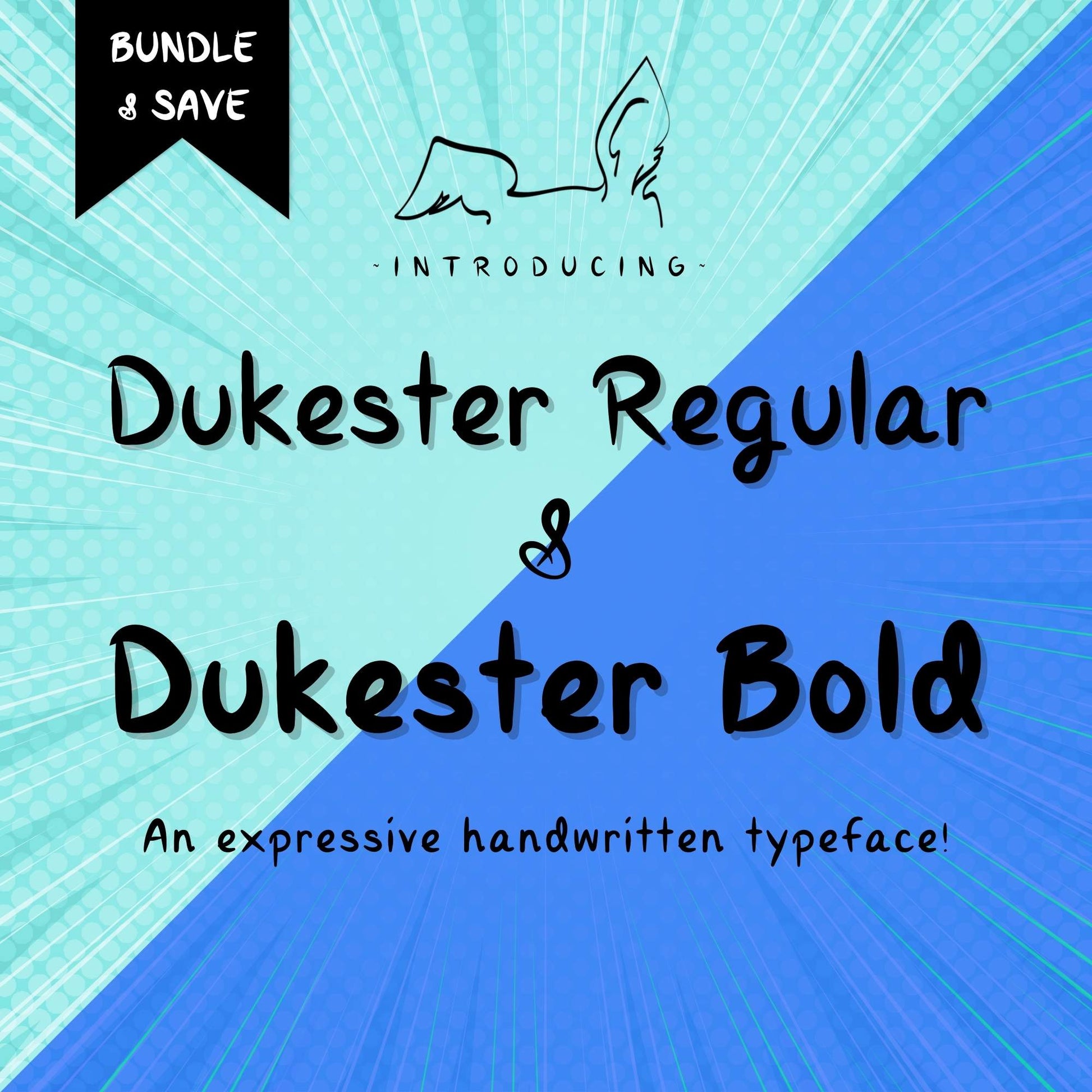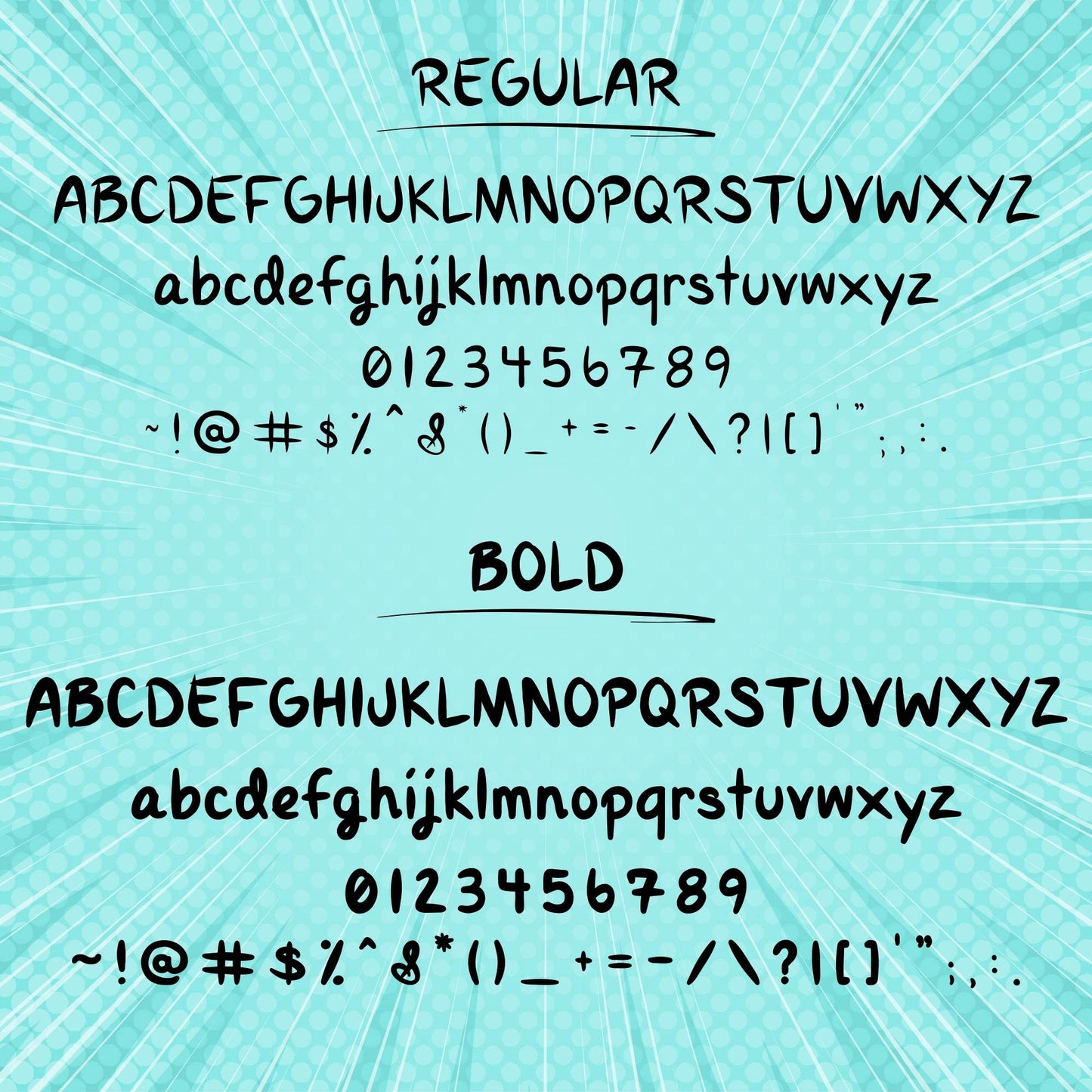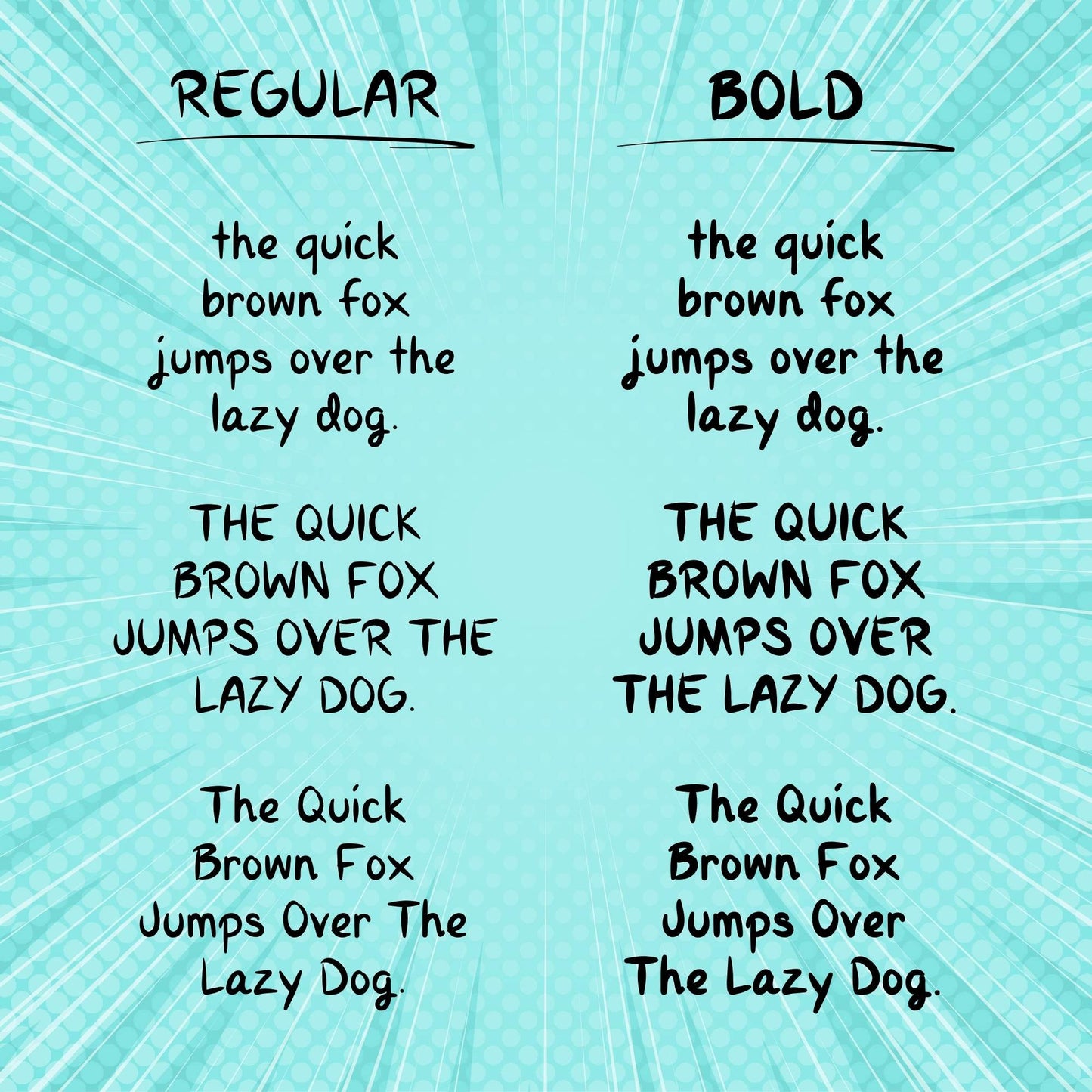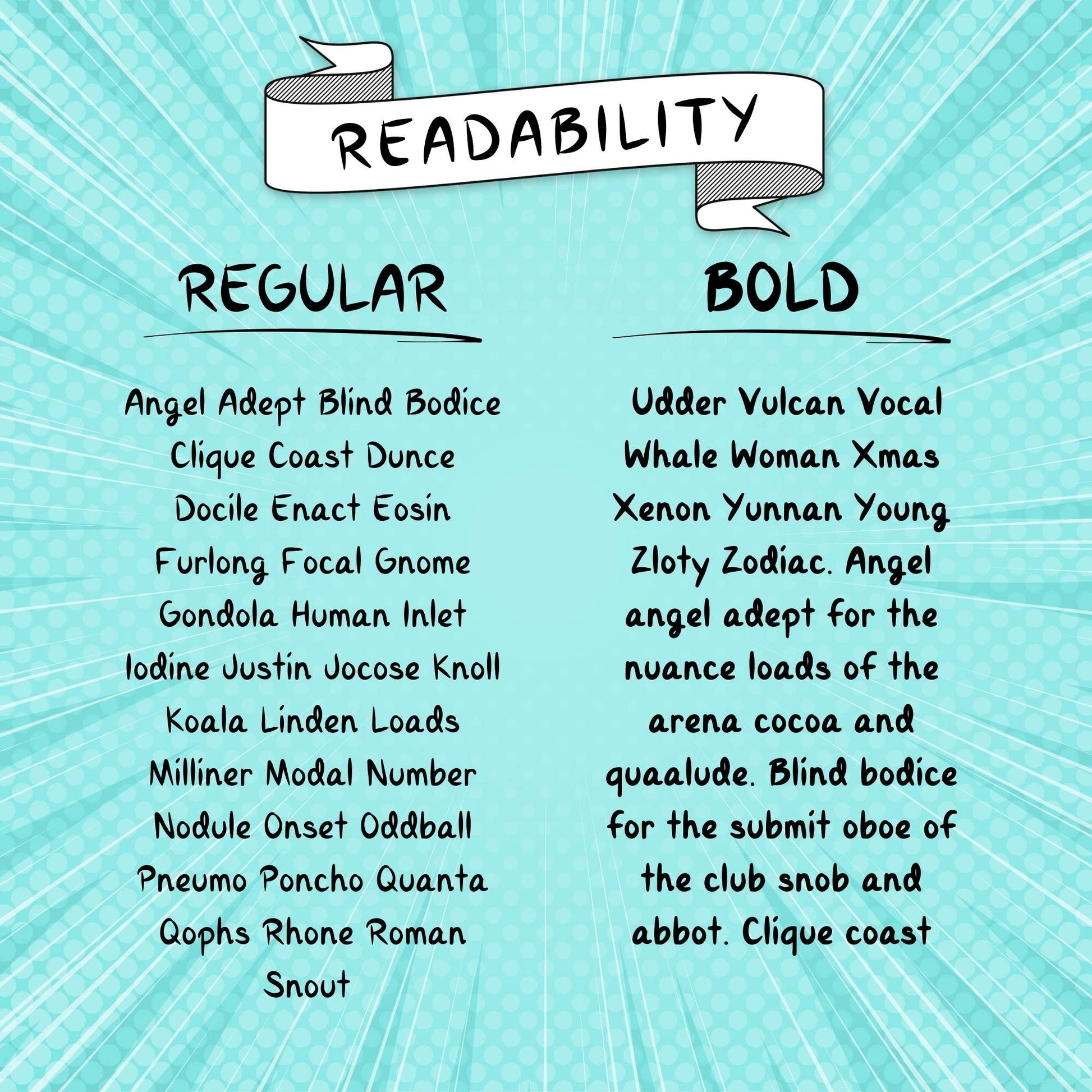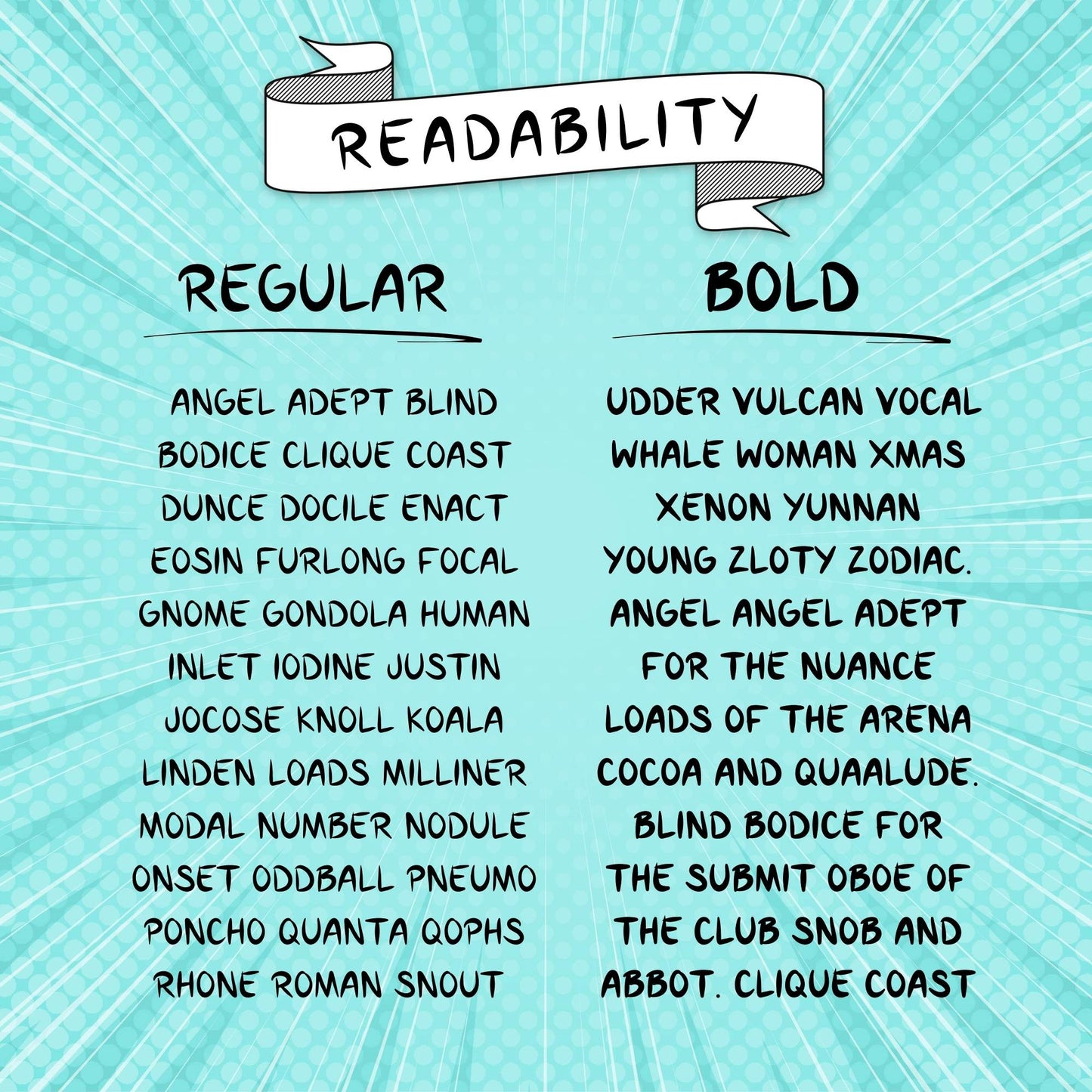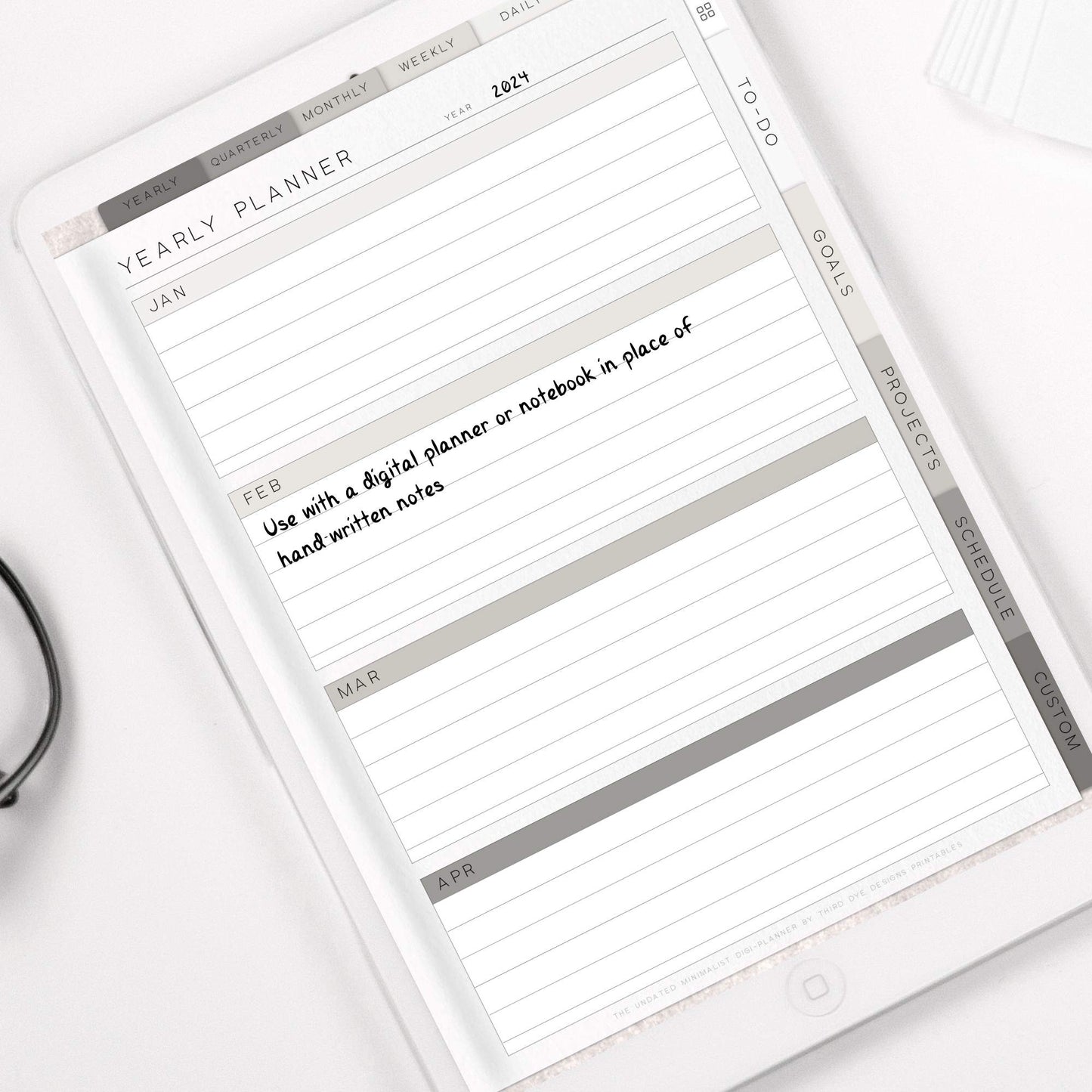
Introducing: Dukester Typeface
An expressive handwritten font in both regular and bold.
This font is unique in that I created it from my handwriting and it is 100% original.